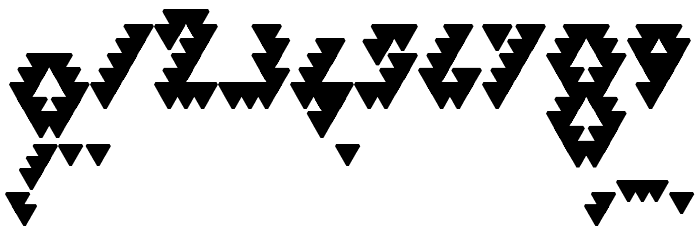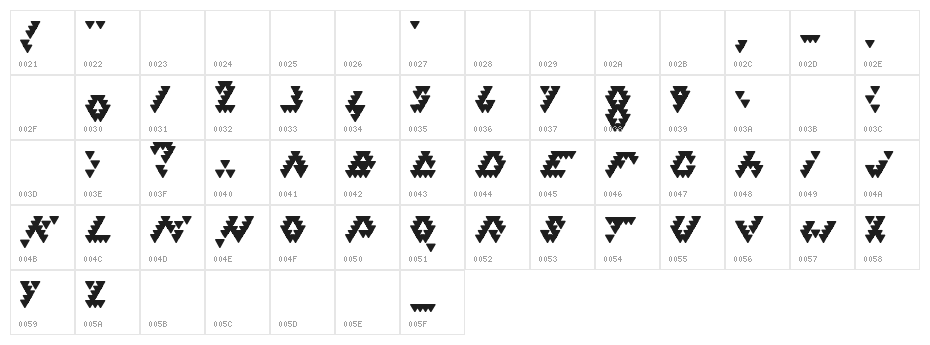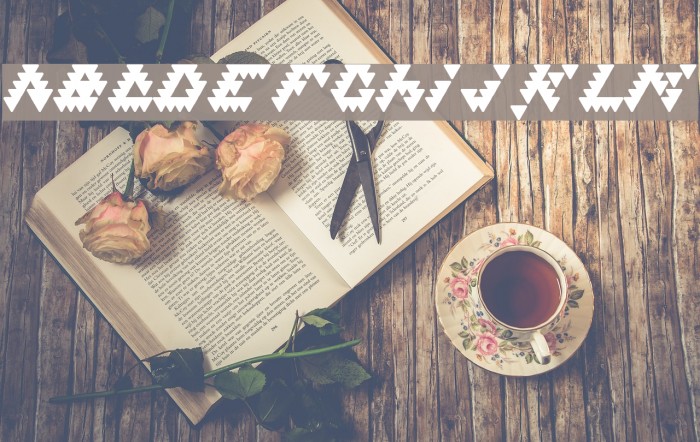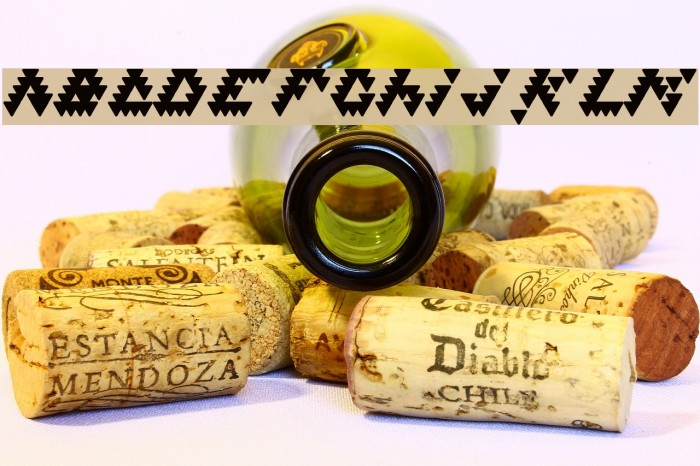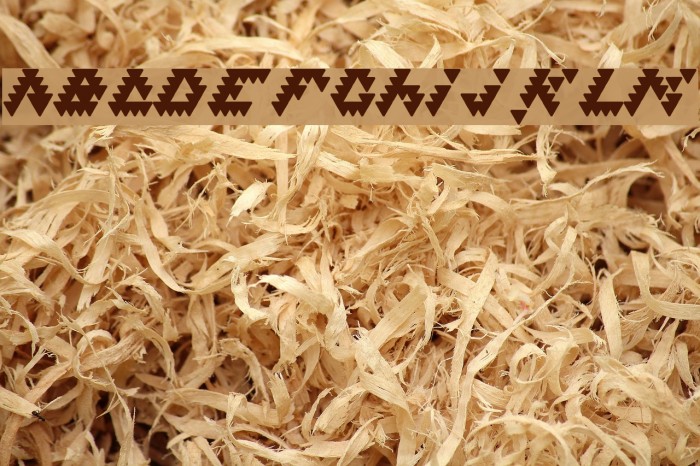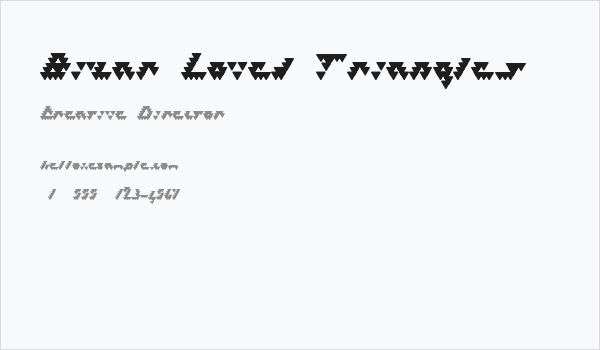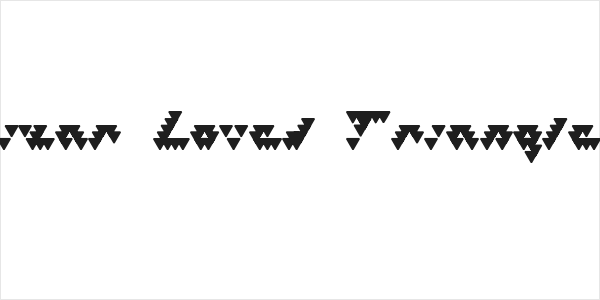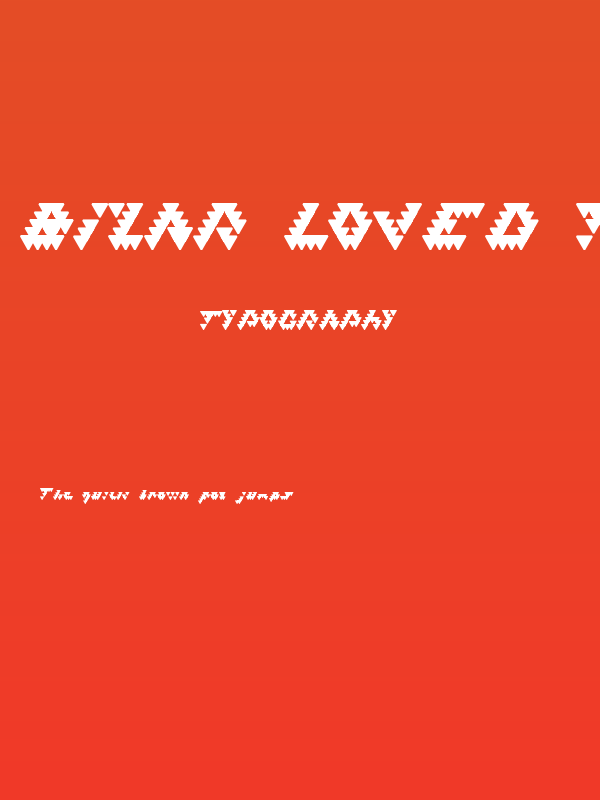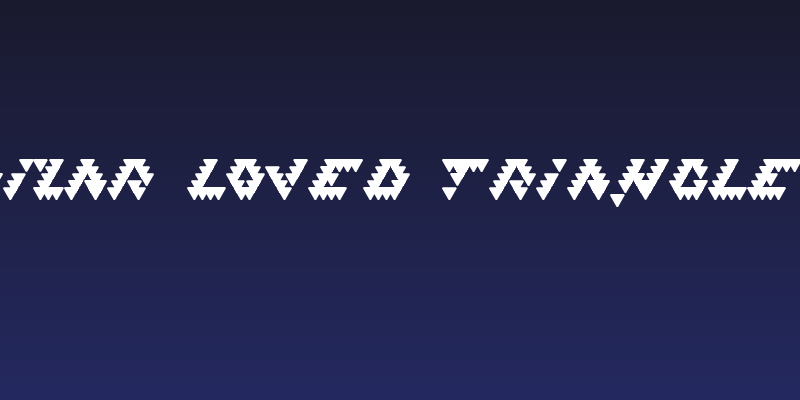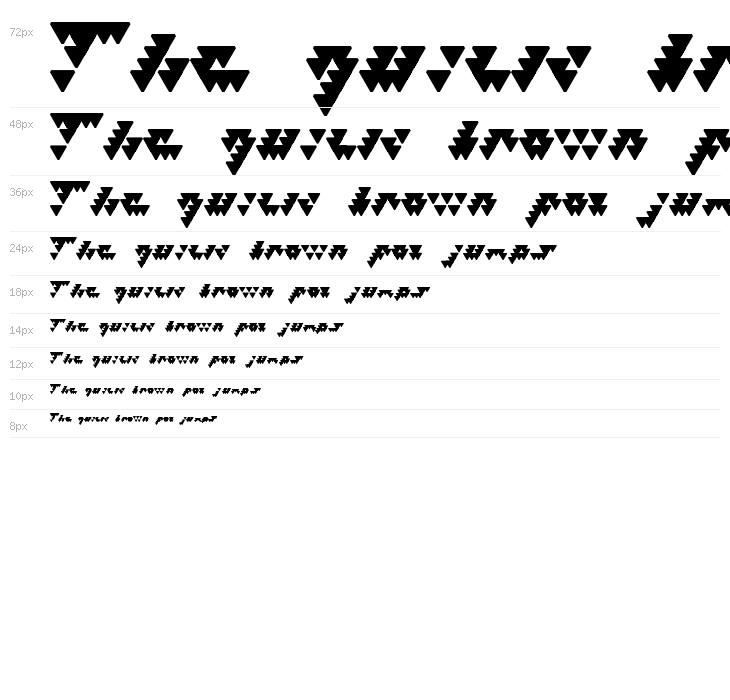
Bizar Loved Triangles Font
Bizar Loved Triangles Description
This font features a unique and bold design, characterized by its use of triangular shapes to form each letter and number. The geometric style gives it a modern and edgy appearance, making it stand out in any design project. The sharp angles and consistent use of triangles create a cohesive and visually striking typeface. This font is perfect for projects that require a strong visual impact and a contemporary feel. Its distinct style makes it suitable for creative and artistic applications, where traditional fonts might not convey the desired aesthetic.
Proposed ProjectsIdeal for album covers, posters, branding for tech companies, or any project needing a modern, artistic touch.